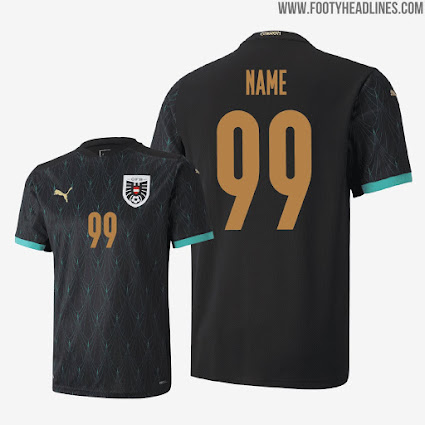
Universal Puma EURO 2020 Kit Font Revealed - To Be Used By All Teams Except Switzerland
On Tuesday, we reported about the odd Switzerland EURO 2020 jersey typeface. However, Switzerland is the only team that will wear a "standard font" - Puma has created a custom typeface that will be used by all other national teams except Switzerland.
In fact, it was first thought that Puma would create bespoke typefaces for their teams. In fact, we already got a look at the PUMA EURO 2020 font when the brand released their Italy 2019-2020 third jersey.
Puma EURO 2020 Kit Font
The Puma EURO 2020 typeface for their kits features an extraordinary style. Each number and letter stands for itself, making every name set very interesting.
The only custom element for each nation is that the number on the back comes with the federation's crest on the bottom.
It is not known yet if Puma will use the typeface for some of their 2020-2021 club football kits as well.